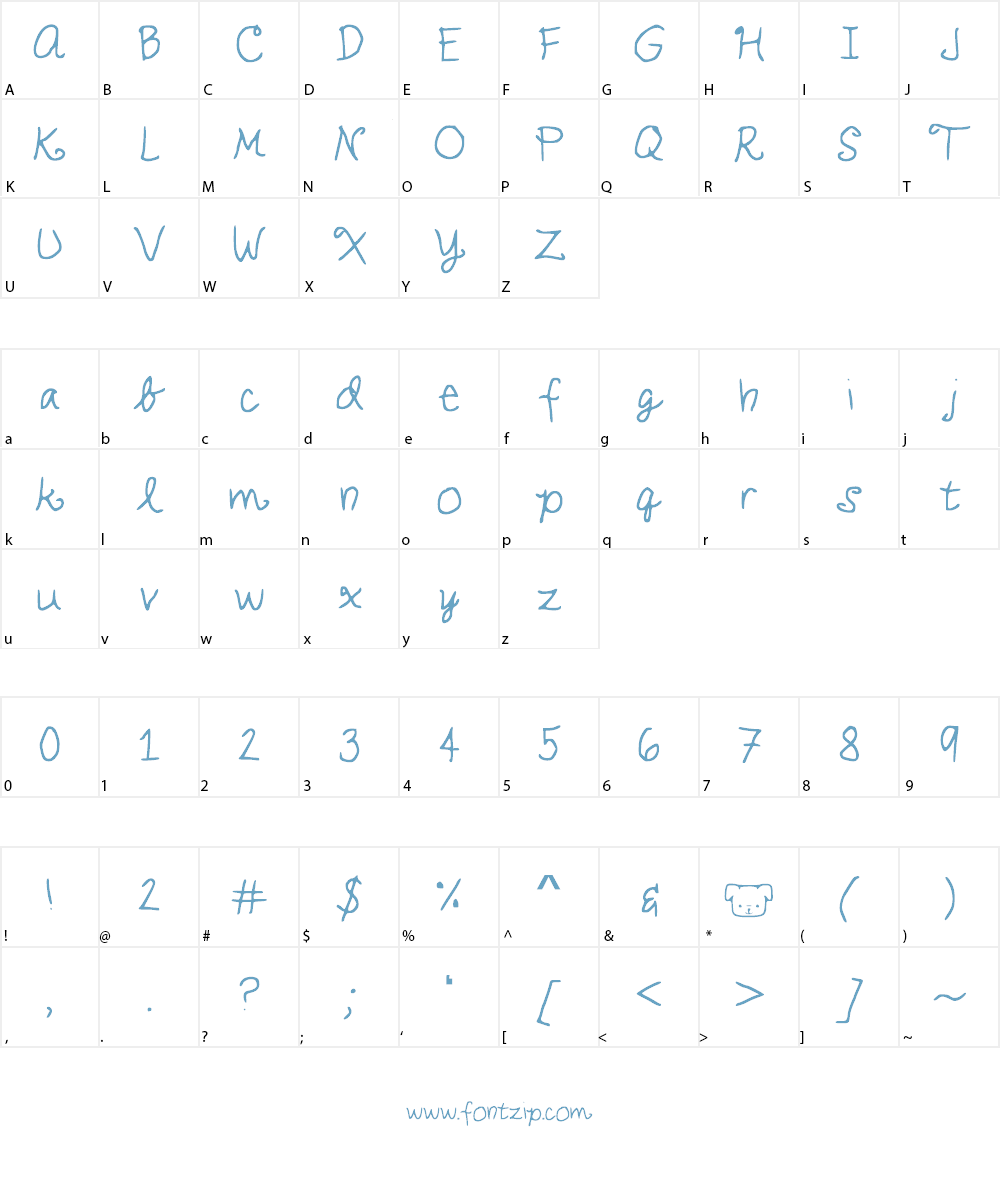
Fun never stops in doodles! Discover numerous drawings of animals, flowers and other random things when you press special letters such as é, ä, î and much much more! Don't forget the weird swirly font! Have fun! :)